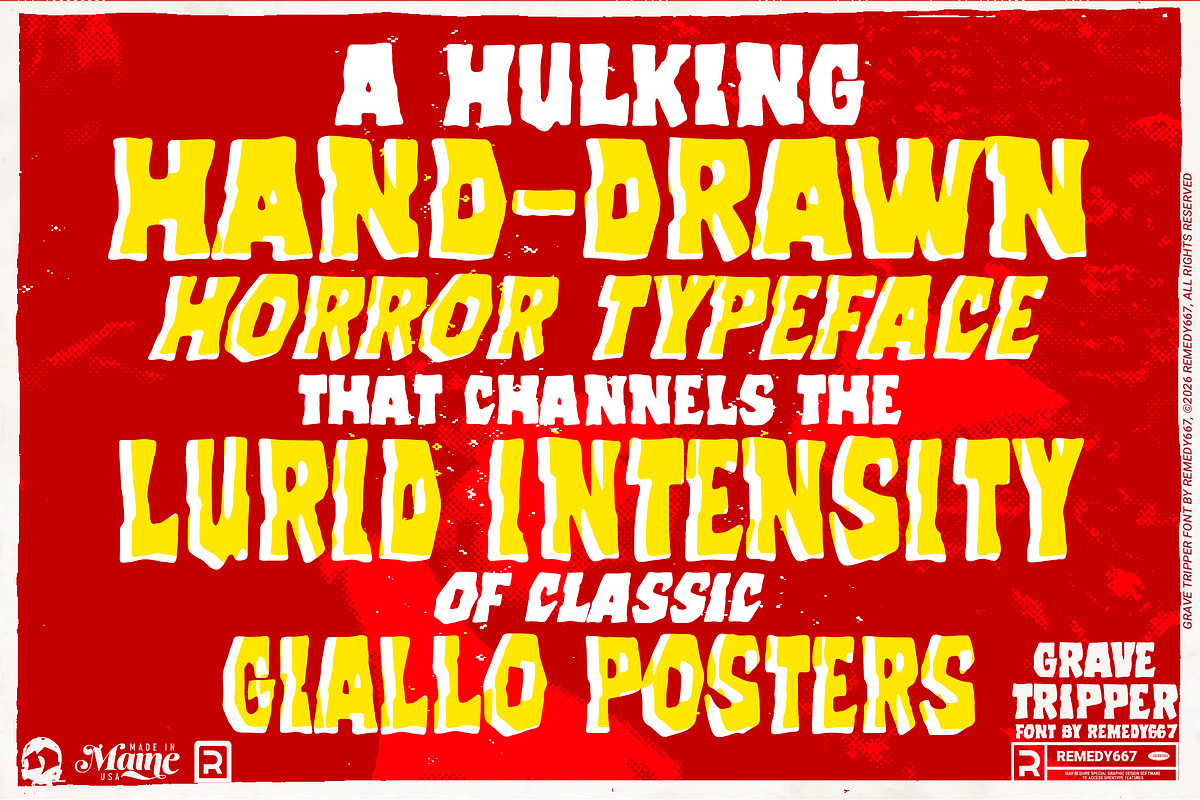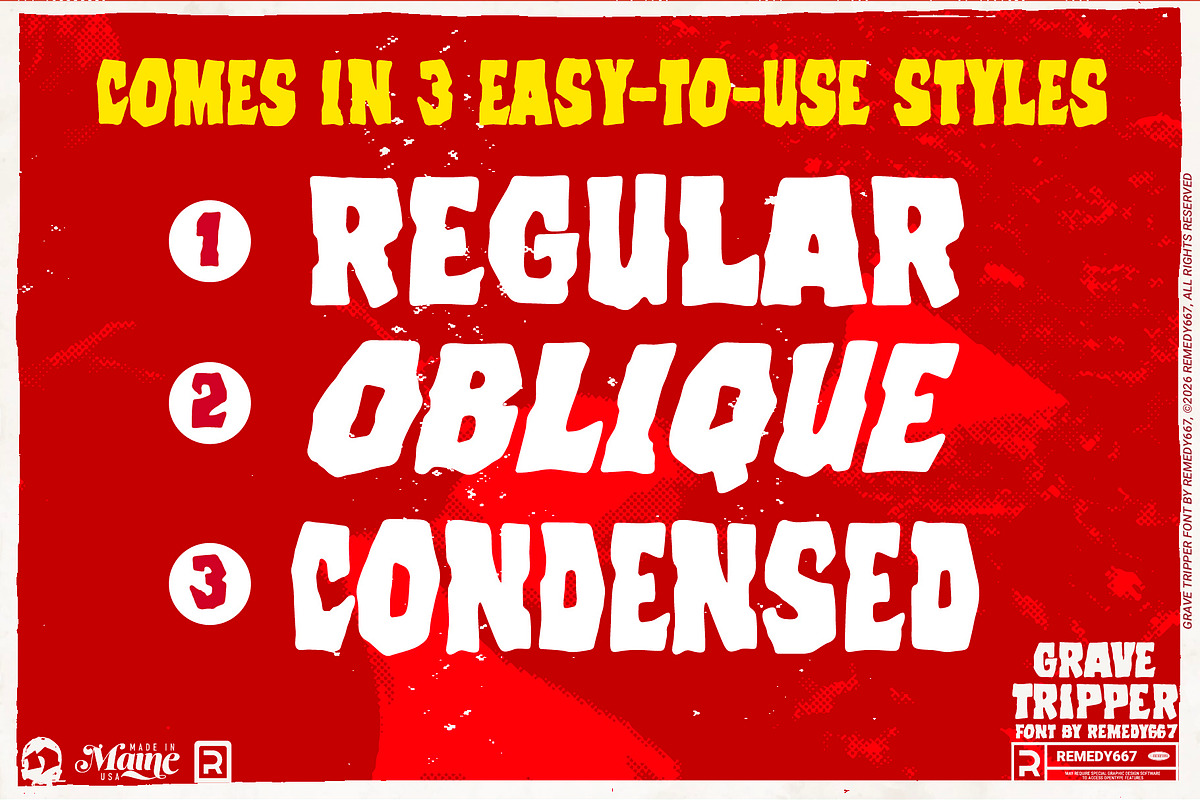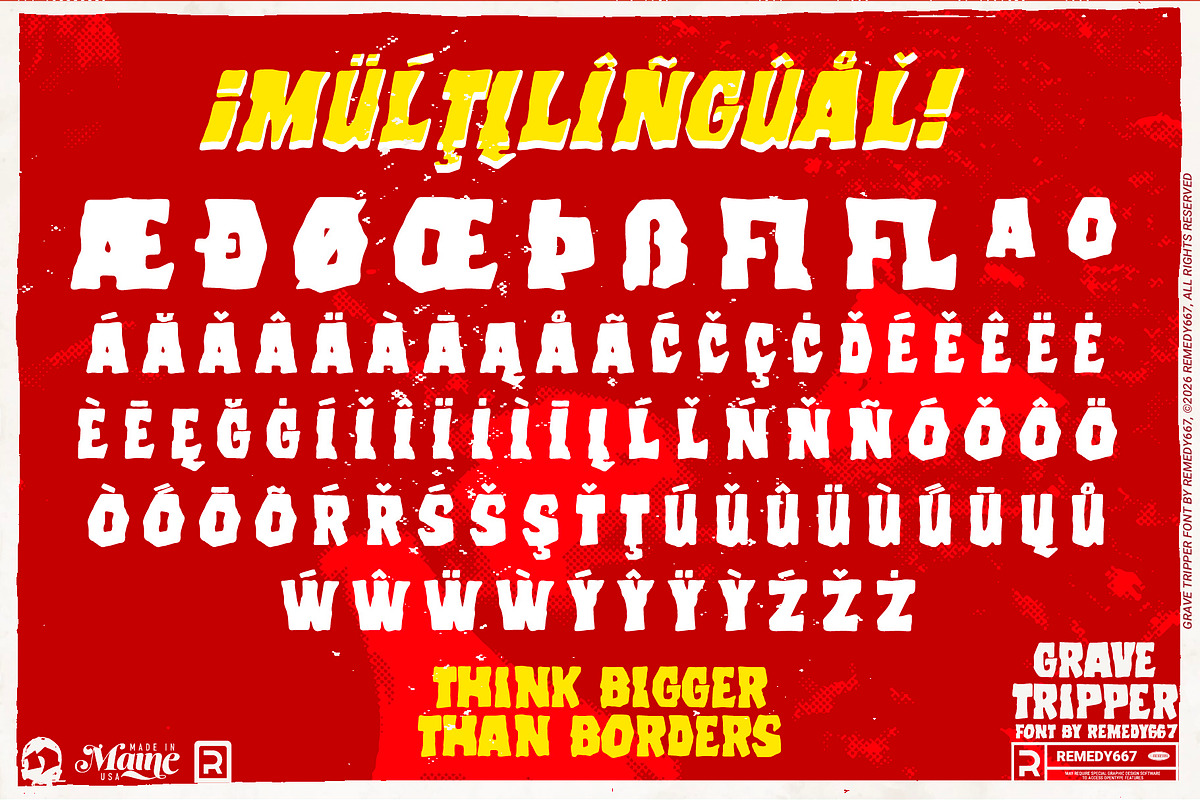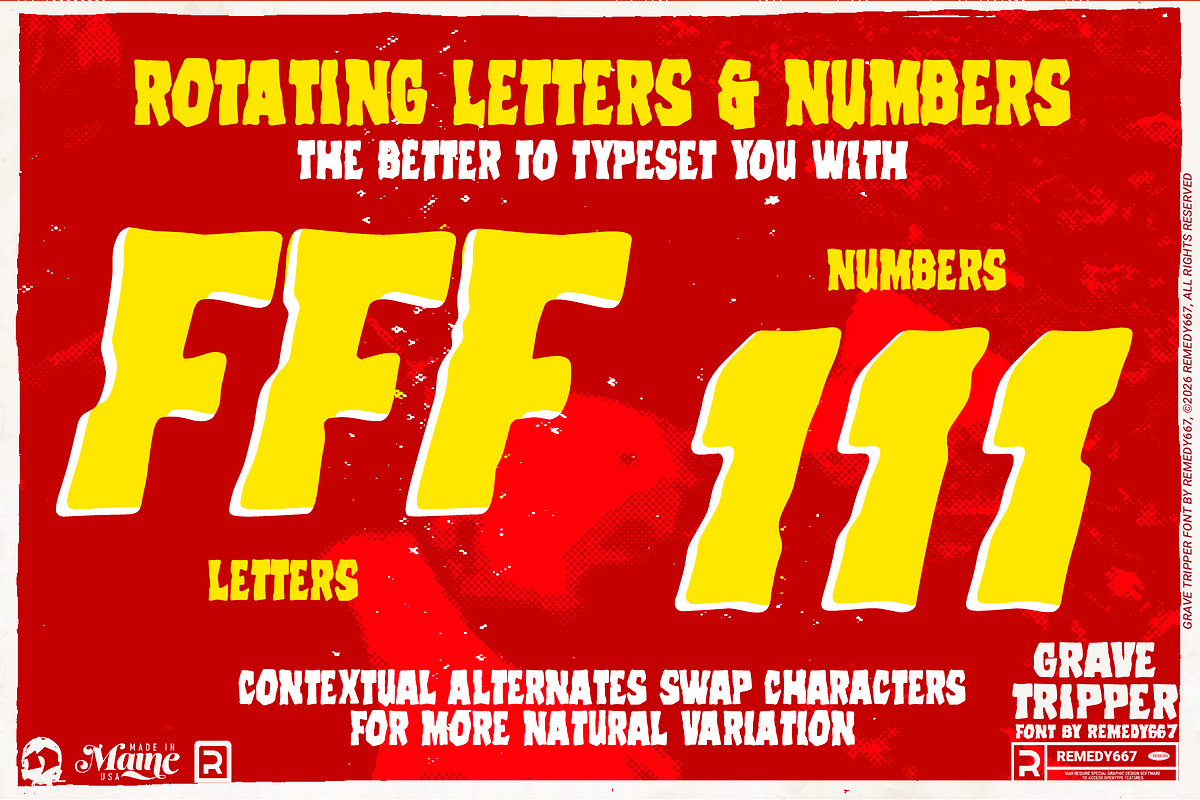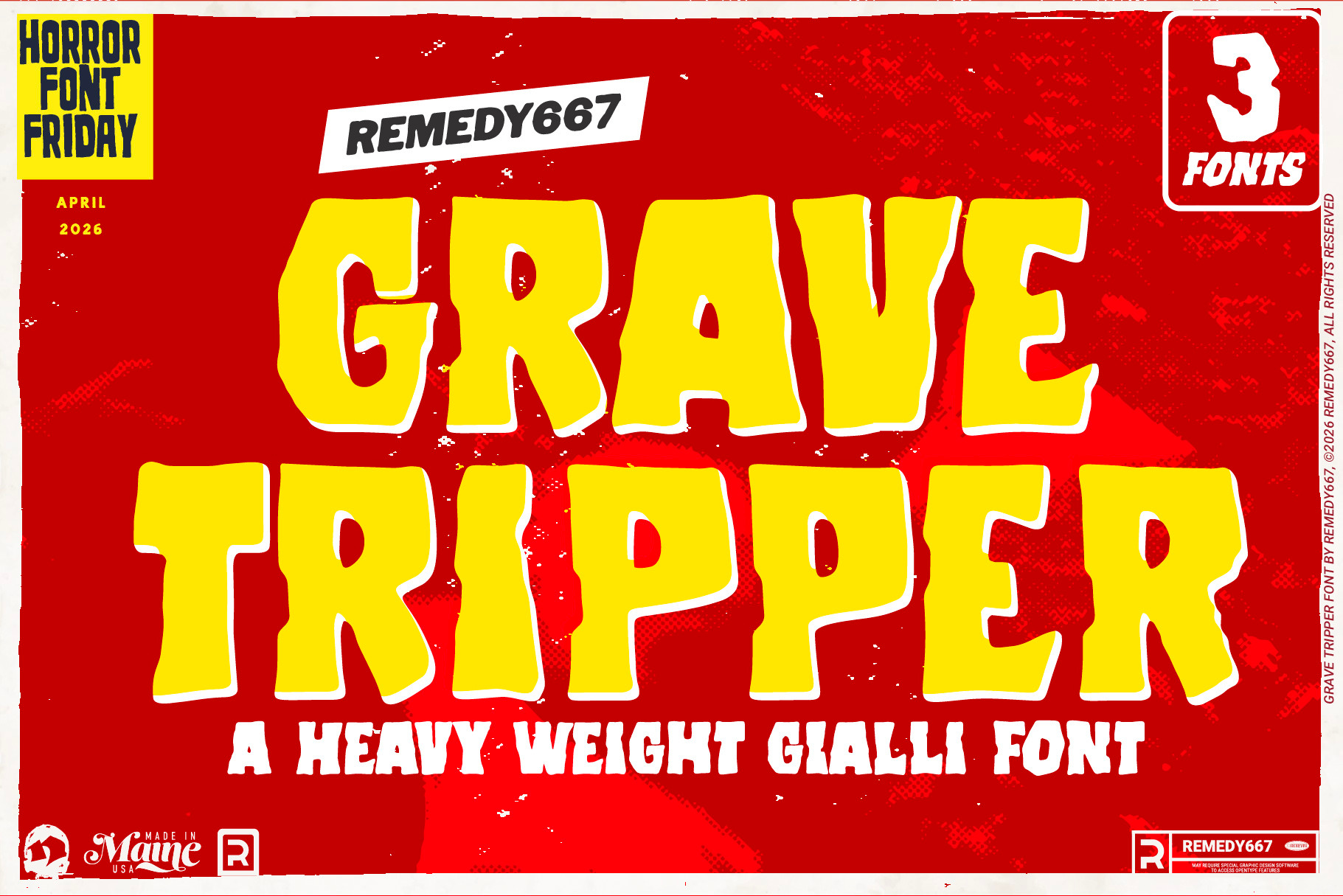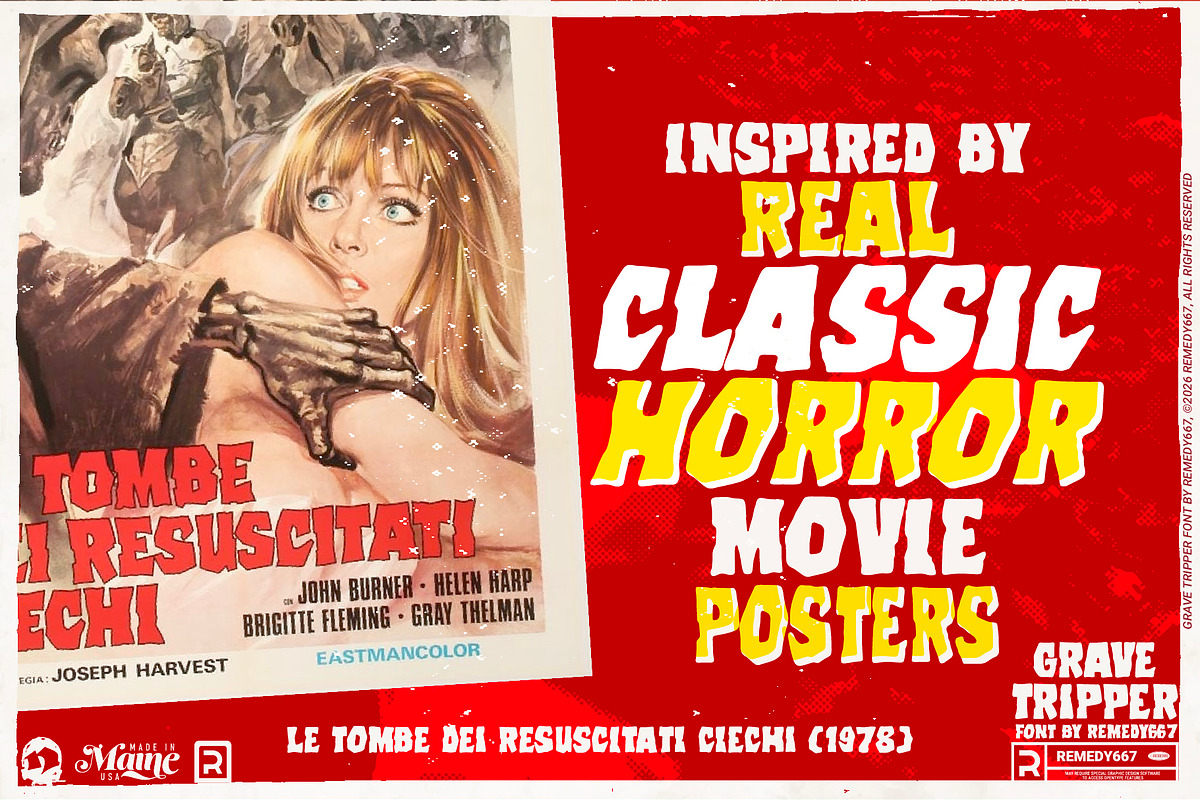
Grave Tripper - Horror Font Pack
Stumble too close to the tomb, and you might just take a Grave Tripper! Inspired by 1970s horror film posters for Tombs of the Blind Dead, Grave Tripper is a hulking, hand-drawn horror typeface that channels the lurid intensity of classic Giallo posters.
Built for designers who like their titles loud and lethal. Grave Tripper delivers thick, unapologetic forms that are perfect for layering, distressing, and pushing to the extremes. Whether you’re conjuring cult cinema chaos or modern horror mayhem, Grave Tripper is ready to take your designs beyond what you ever thought possible!
Heavy, bold hand-drawn lettering inspired by Giallo poster design
Perfect for applying textures, effects, and dramatic styling
Includes Regular and Oblique versions for versatility
Multilingual support for taking your projects global